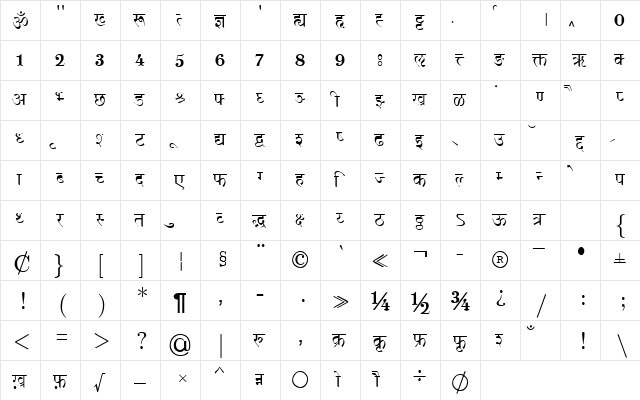
Shusha Normal Font Preview
Shusha Normal
Design Context for Shusha Typeface
Shusha takes a measured approach to typography — its balanced proportions and neutral character make it a reliable workhorse for both digital and print work.